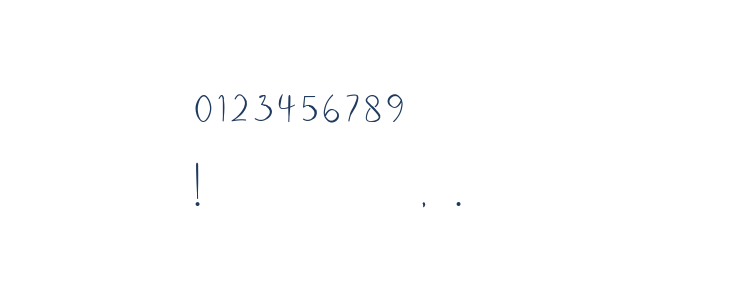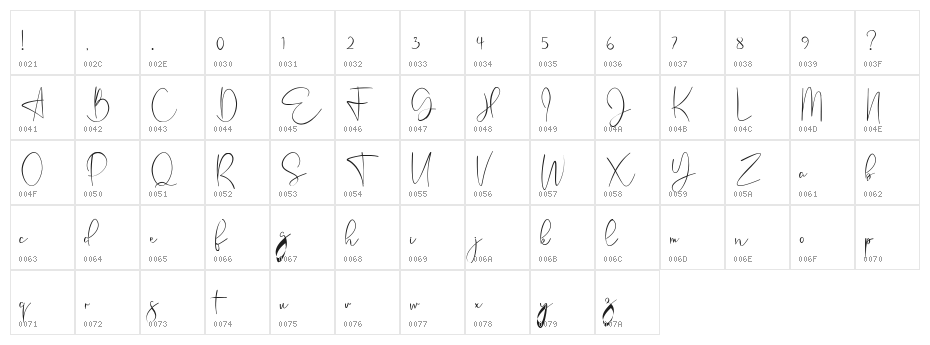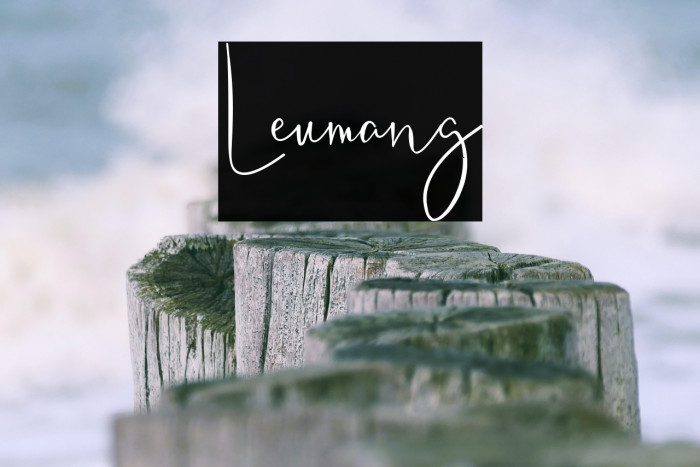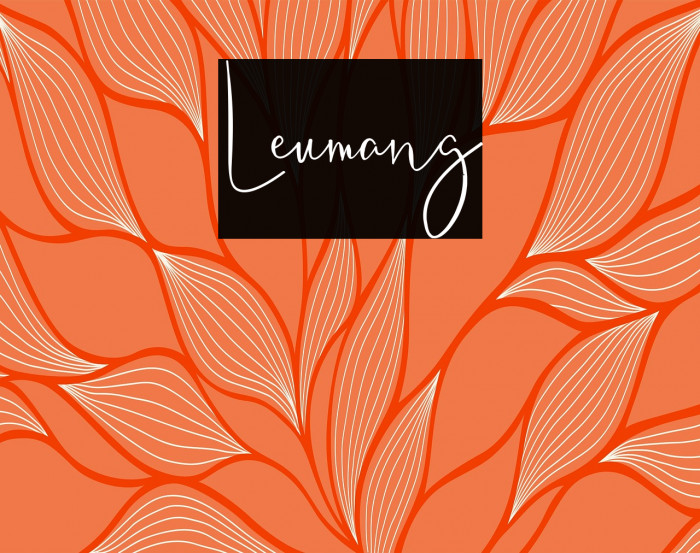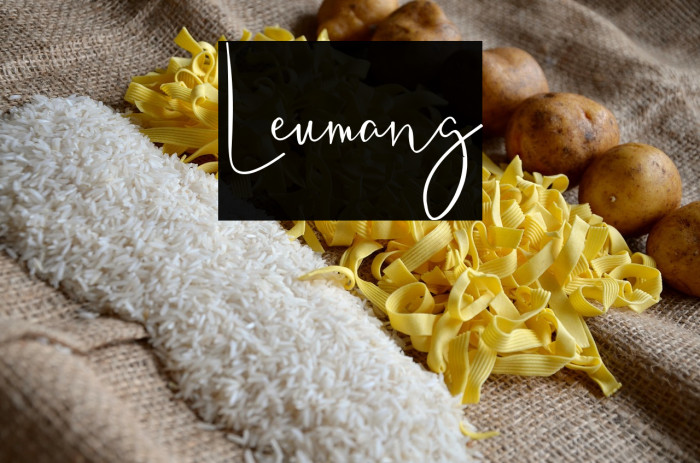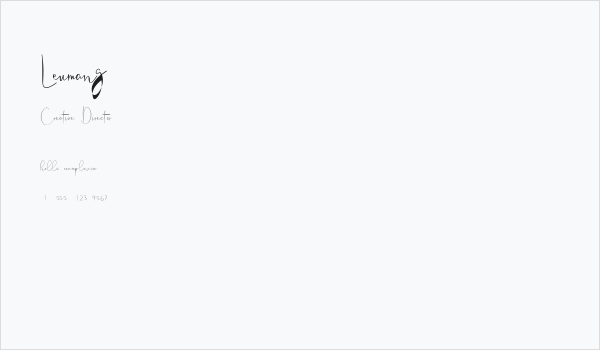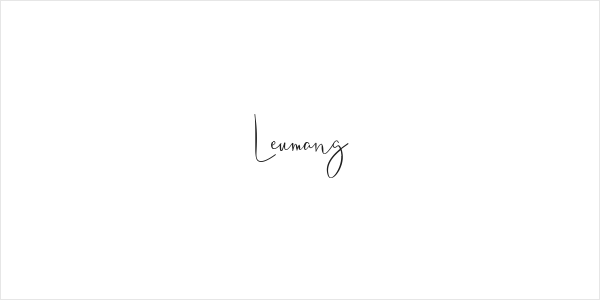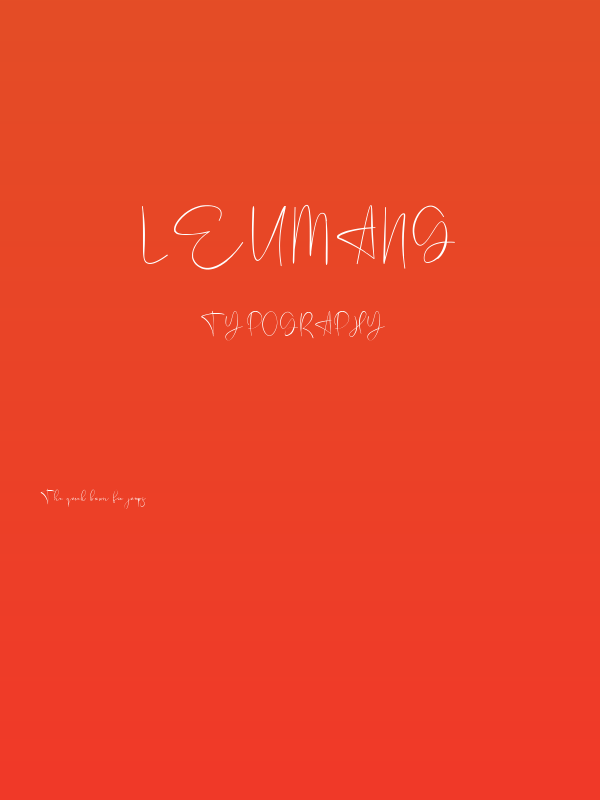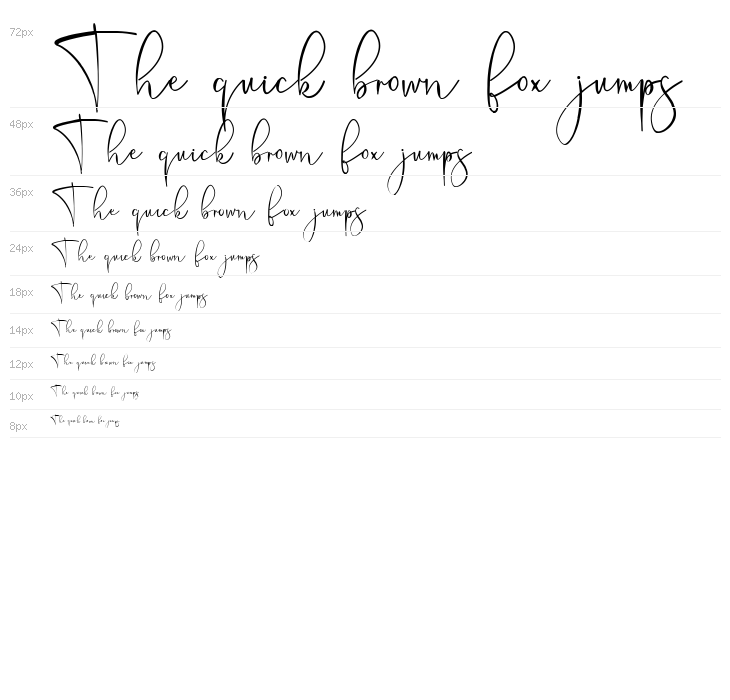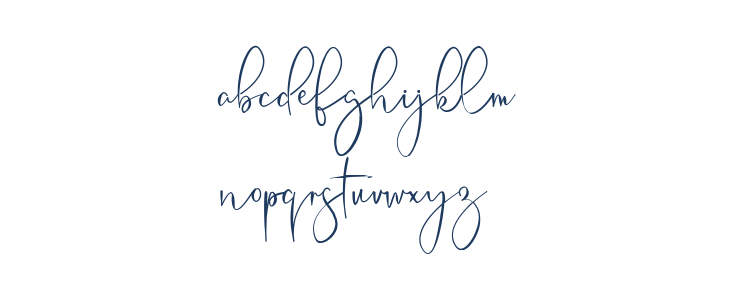
Leumang Font
Leumang Description
This font features a playful and elegant handwritten style, characterized by its flowing and interconnected letterforms. The uppercase letters exhibit a whimsical flair with varying stroke widths, while the lowercase letters maintain a consistent, cursive appearance. The numerals are simple yet complement the overall style, adding a touch of sophistication. The special characters are minimalistic, enhancing the font's versatility. Its unique charm makes it suitable for creative projects that require a personal touch.
Use CaseLogos, Invitations, Personal Branding
Proposed ProjectsIdeal for wedding invitations, greeting cards, personal branding, and creative projects requiring a personal touch.